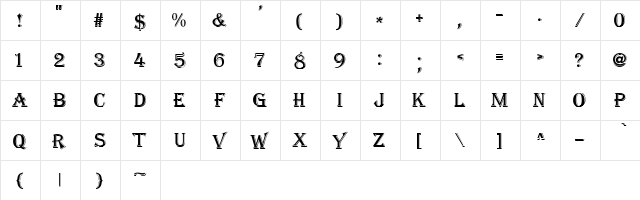
Albania Regular Font Preview
Albania Regular
Design Context for Albania Typeface
Albania is a composed and adaptable typeface that performs quietly and consistently across a wide range of design contexts.